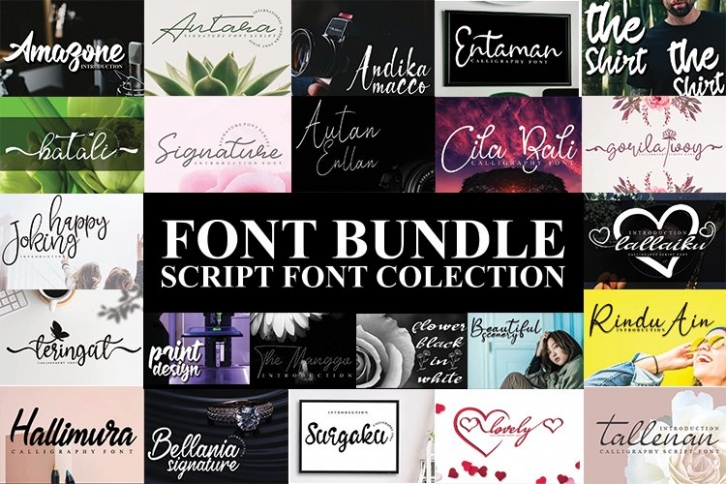
BUNDLE SCRIPT COLECTION is a great font that was designed by andikastudio1. Imagine the amount of combinations you can create using this font! The archive is 13.77 MB and it was released on April 15, 2020. BUNDLE SCRIPT COLECTION looks beautiful on wedding invitations, greeting cards, logos, posters, labels, t-shirt designs, logos, business cards and is perfect for use in ink or watercolor works, fashion, magazines, packaging and food menus, children's books and more!